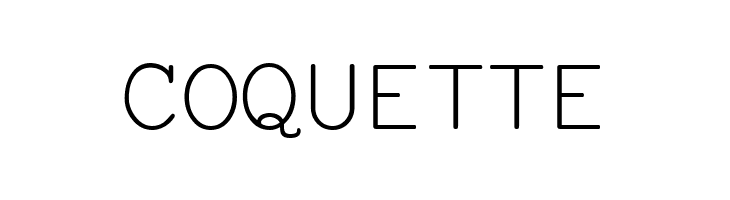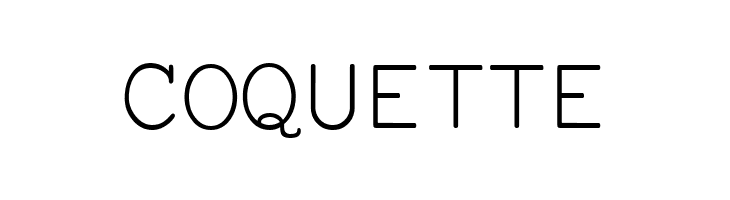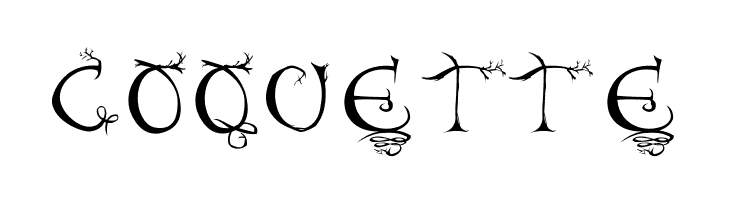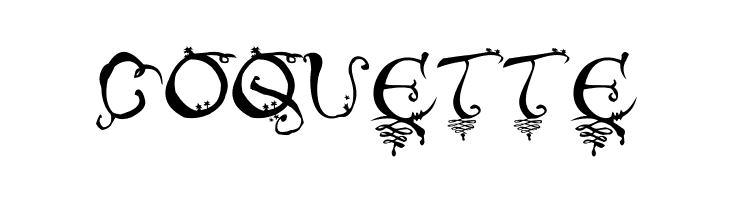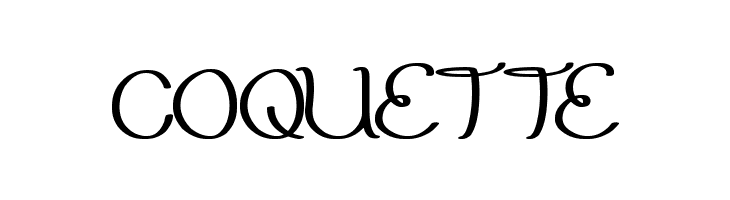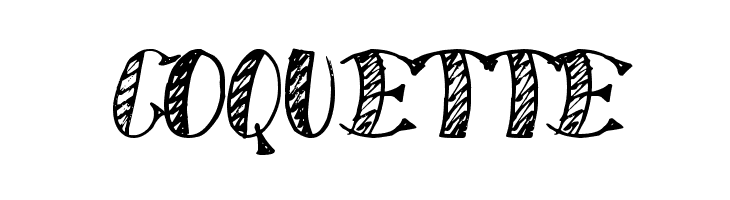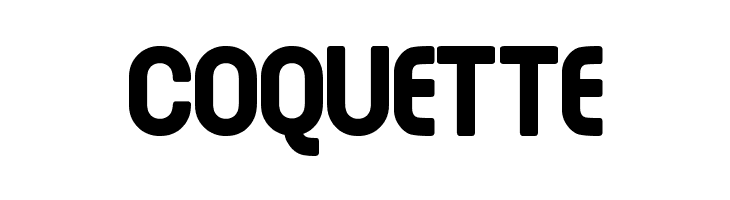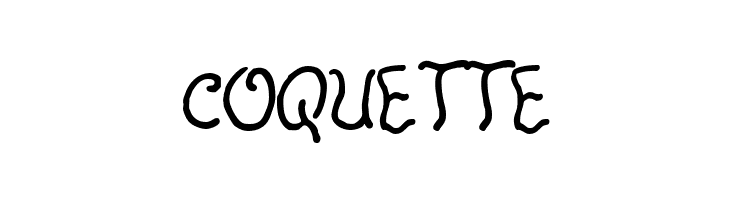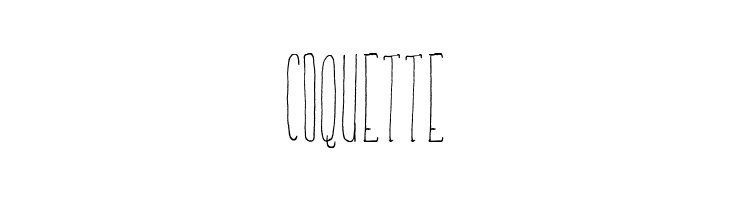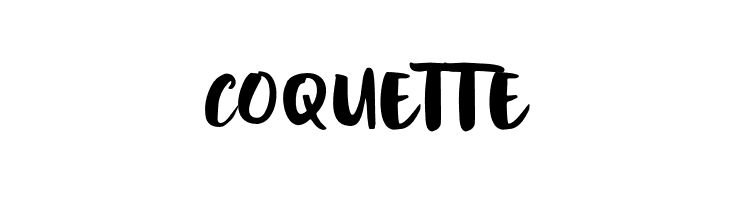
A classic serif font with modern elegance and refined letterforms.
A flowing cursive font with elegant, connected letters and moderate stroke contrast.
A modern sans-serif font with rounded edges and uniform stroke width.
A bold and robust serif font with strong, pronounced strokes.
A tall, narrow, hand-drawn font with an organic and elegant style.
A tall, narrow, hand-drawn font with a whimsical and artistic style.
A bold, rounded font with a futuristic and modern style.
A flowing, handwritten cursive font with elegant, connected letters.
A bold, decorative font with artistic curves and flourishes.
A playful, hand-drawn font with wavy lines and a whimsical style.
An elegant, flowing script font with a handwritten appearance.
A rounded, playful font with smooth curves and a friendly, modern appearance.
A flowing, cursive script font with elegant loops and swirls.
A cursive, handwritten font with elegant, flowing strokes.
A whimsical, nature-inspired font with vine-like flourishes and an enchanted aesthetic.
A whimsical and ornate font with decorative embellishments and a mystical style.
A decorative font with a blend of modern and classic elements, featuring dynamic and artistic strokes.
A playful and energetic handwritten font with fluid strokes.
A bold and expressive script font with dynamic and playful letterforms.
A playful, whimsical font with a handwritten quality and rounded edges.
A casual, handwritten font with a playful and informal style.
A bold, hand-drawn font with a playful, sketch-like appearance.
A bold, playful handwritten font with a casual and dynamic style.
A playful, hand-drawn font with bold, rounded strokes and a whimsical charm.
A bold, playful font with rounded, whimsical characters.
A whimsical and playful font with curly, flowing letterforms.
A playful, bold font with a hand-drawn, whimsical style.
A bold, italic font with a playful and dynamic style.